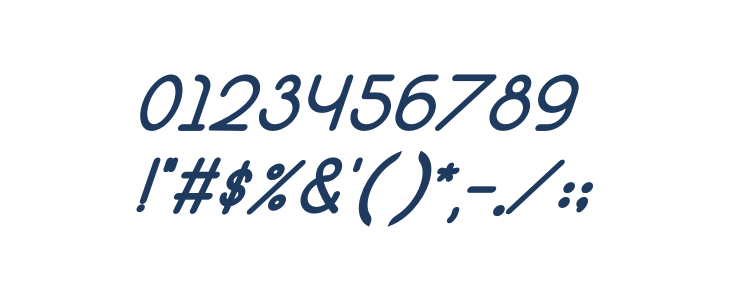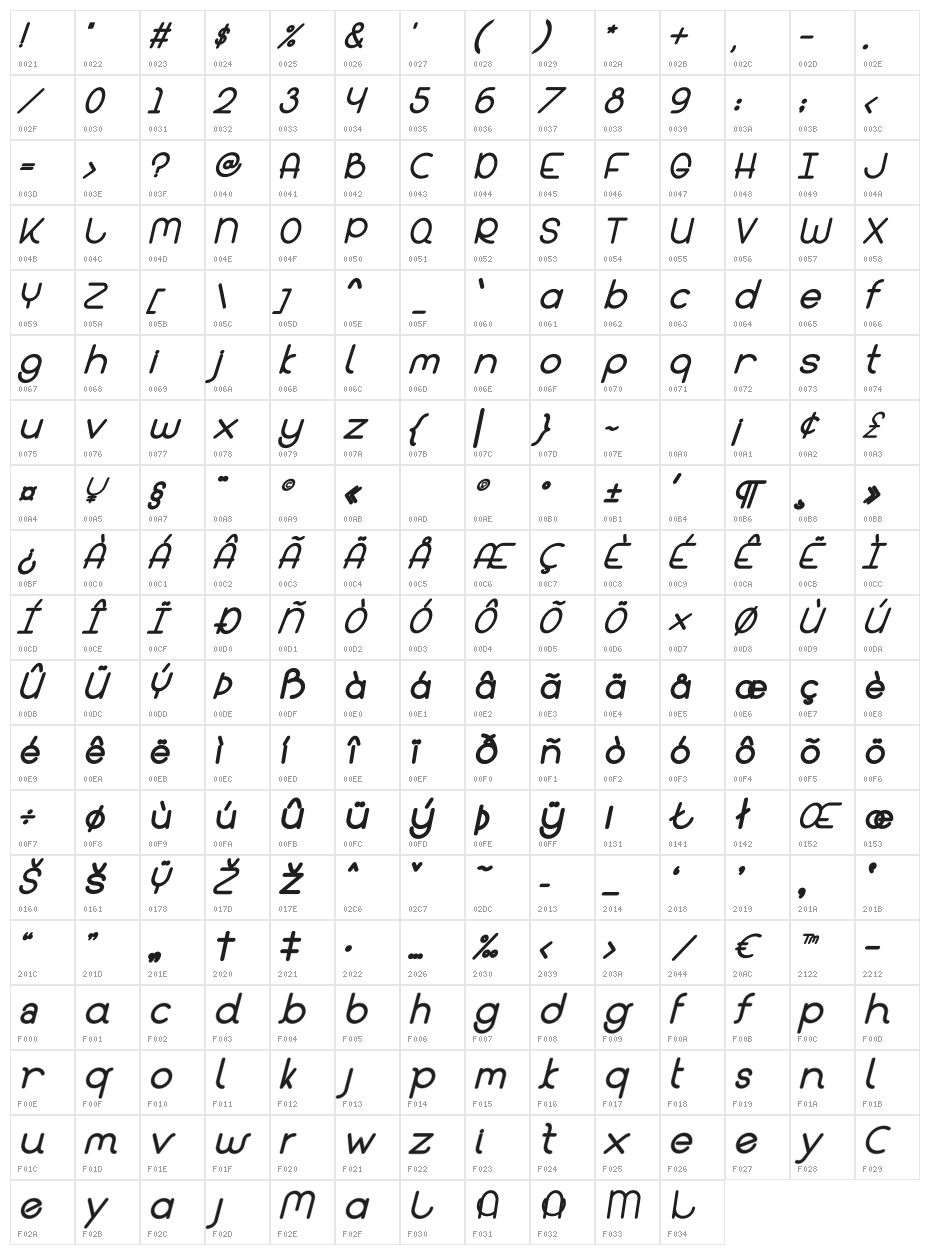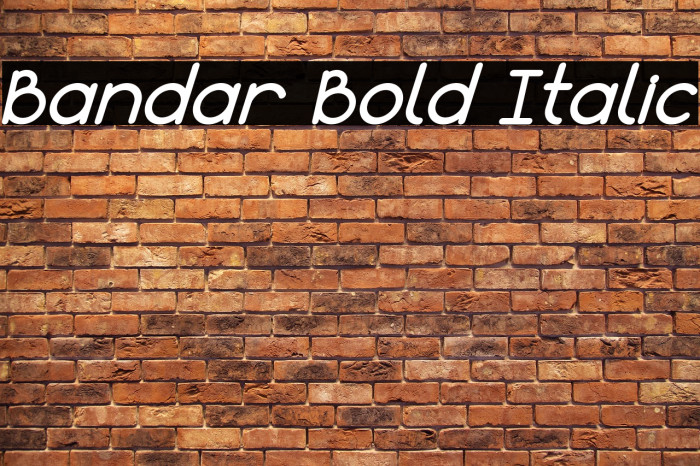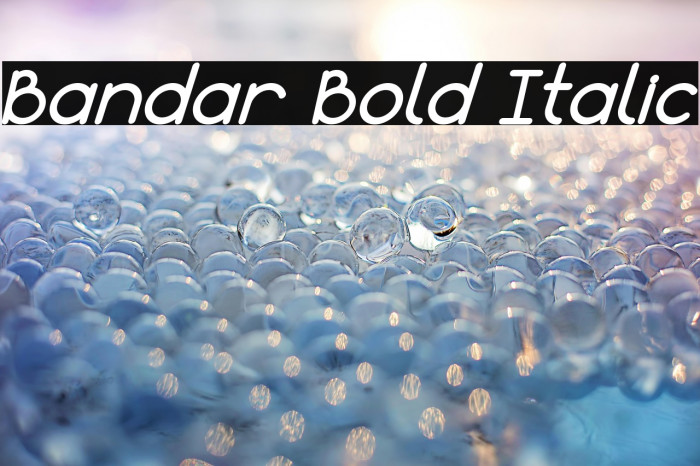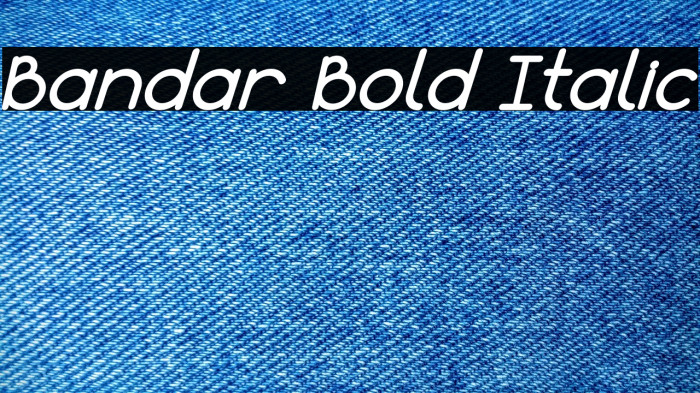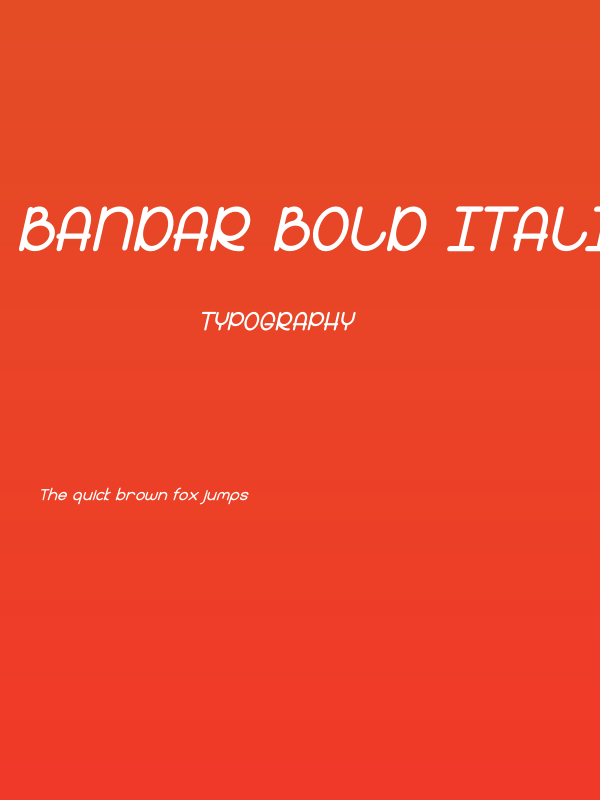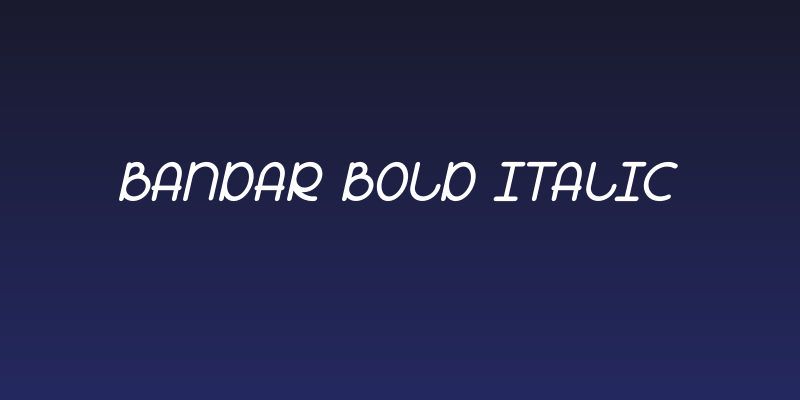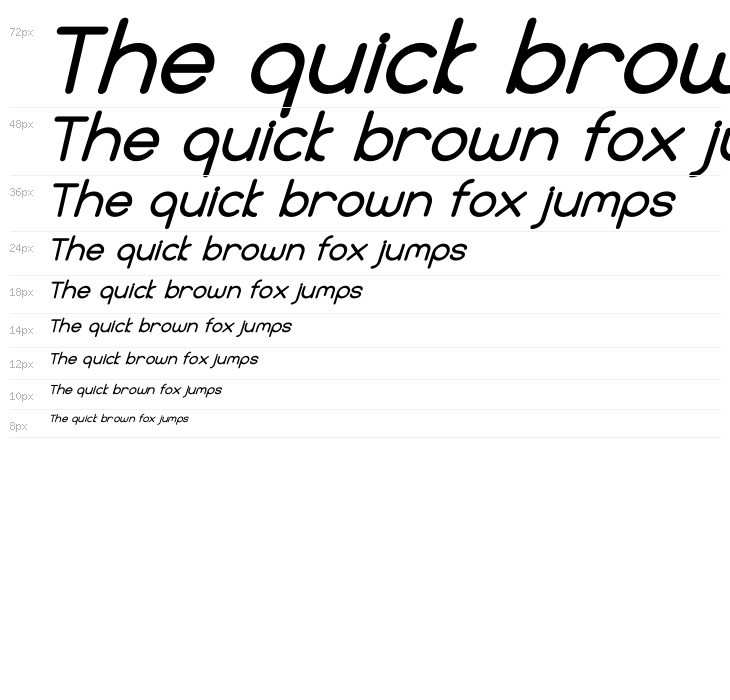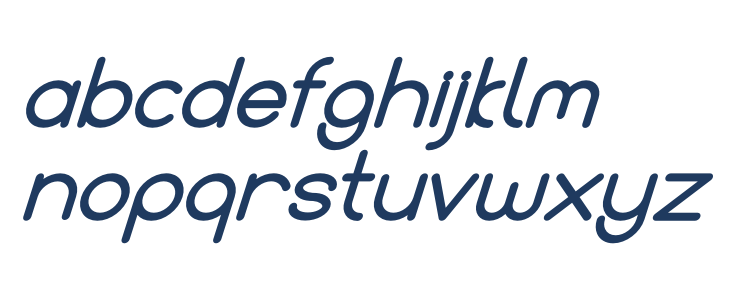
Bandar Bold Italic Font
Bandar Bold Italic Description
This font features a bold and italic style with smooth, rounded edges that give it a friendly and approachable appearance. The characters are slightly slanted, enhancing its dynamic and modern look. The strokes are consistent in thickness, providing a uniform and cohesive feel across all characters. The font maintains a playful yet professional vibe, making it versatile for various design needs. Its readability is high due to the clear distinction between each letter, and the spacing is well-balanced, ensuring clarity in both small and large sizes.
| Proposed Projects | Ideal for branding, advertising, posters, and digital content where a modern and friendly tone is desired. |